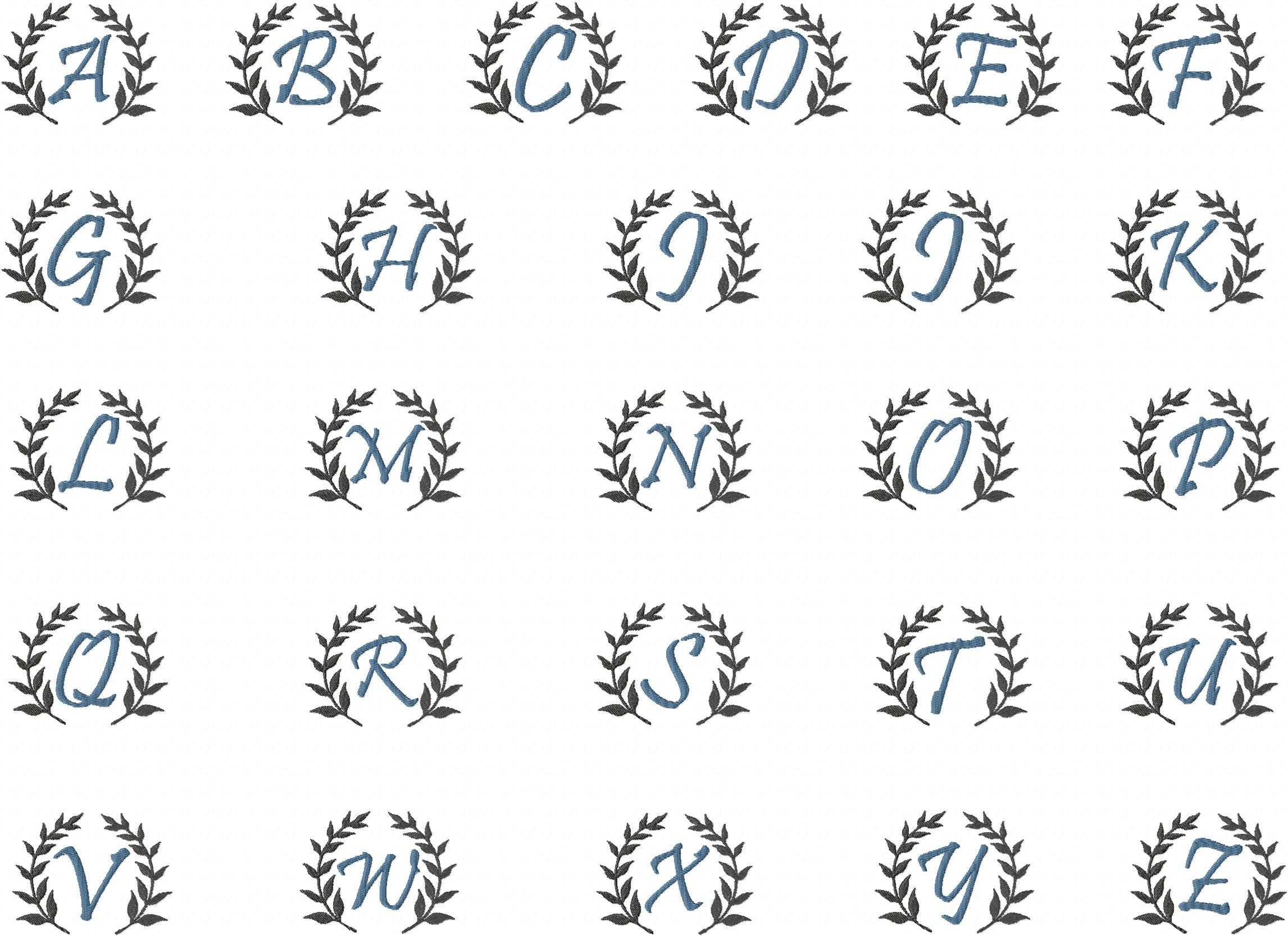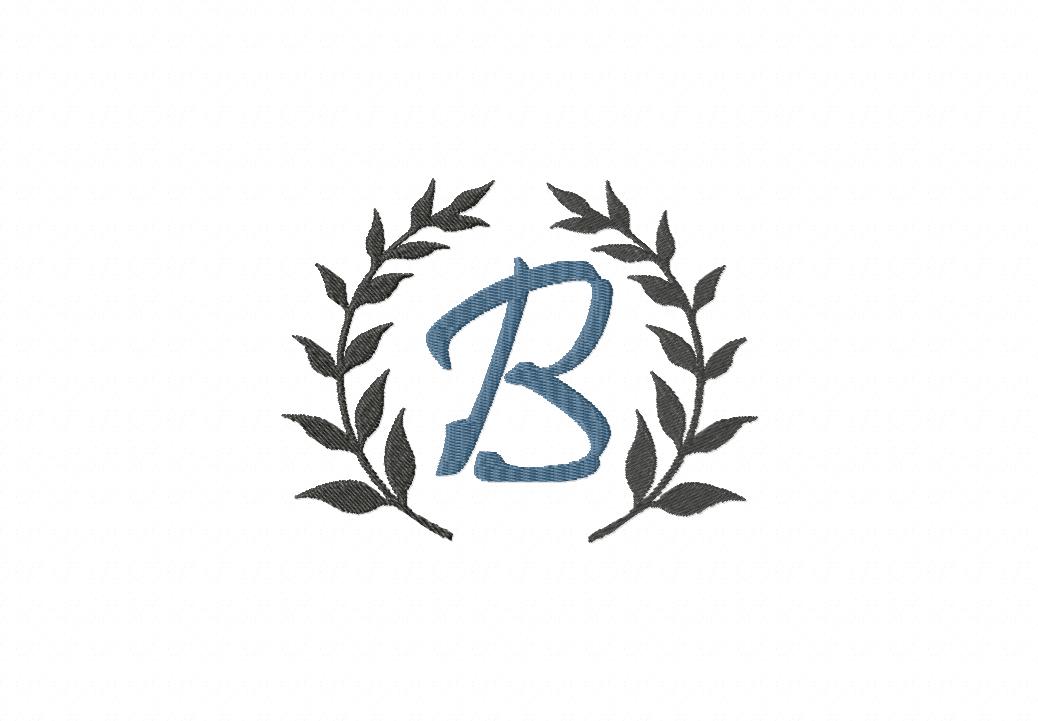
Download this gorgeous Font in 3 sizes with each letter surrounded by an elegant Olive Branch. This is a great one for monogramming. Get it for Gold Members only.
The Olive Font includes 26 letters in 3" 4" & 5" Sizes